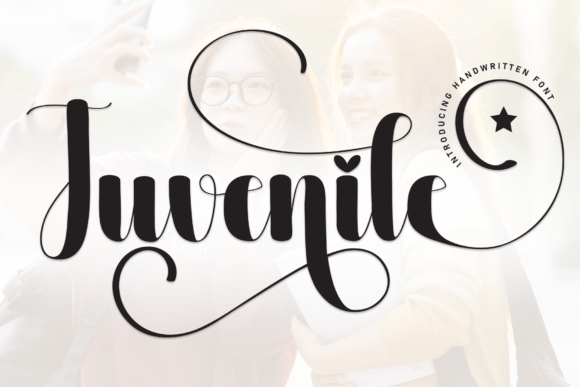
Step into the world of Juvenile Font, a remarkable handwritten typeface that seamlessly blends classic calligraphy with a modern, captivating flair. This font is a visual masterpiece, meticulously crafted to elevate your designs to new heights. Immerse yourself in its elegant curves and delicate strokes, and watch your creative visions come to life with an unparalleled sophistication and charm.
With Juvenile Font, you hold the key to unlocking a world of creative possibilities. Its versatility knows no bounds, effortlessly adapting to a plethora of design projects. Whether you're a seasoned graphic designer or a budding entrepreneur, this font will become your trusted companion, transforming your ideas into stunning realities.
Harness the power of Juvenile Font to craft logos that exude timeless elegance, business cards that leave a lasting impression, and social media posts that captivate your audience. Unleash your creativity and let Juvenile Font guide you toward design excellence, leaving an indelible mark on all who encounter your creations.
But Juvenile Font is more than just a tool; it's an experience. As your fingers glide across the keyboard, you'll feel the passion and artistry poured into every letterform. Each stroke tells a story, evoking a sense of nostalgia and wonder. Let Juvenile Font transport you to a realm where imagination reigns supreme.
Don't settle for ordinary fonts. Embrace the extraordinary with Juvenile Font. Embark on a creative journey where your designs transcend the mundane and enter the realm of the truly exceptional. Let your imagination soar and witness the transformative power of Juvenile Font.
Join the ranks of creative visionaries who have discovered the magic of Juvenile Font. Let your designs blossom with newfound beauty and elegance. Experience the joy of crafting masterpieces that resonate with your audience, leaving them spellbound and yearning for more.